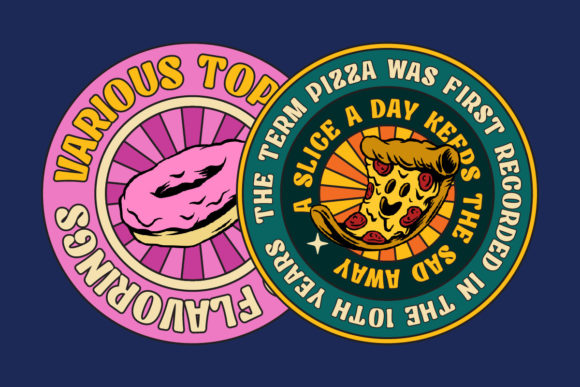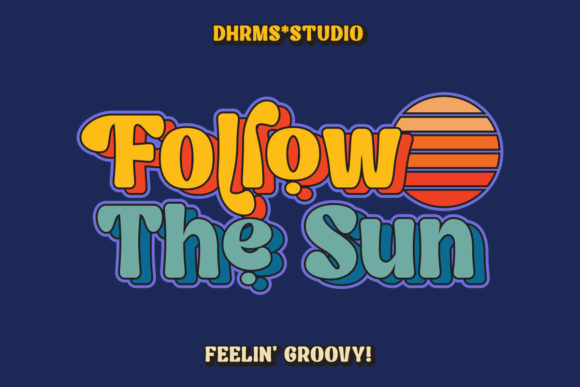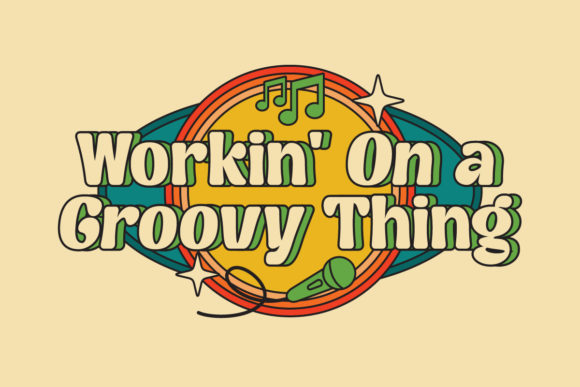
Introduction to Kelpo Font
Kelpo is a cool display font, inspired by 70’s retro style and pop culture’s visual design like old comics, cartoons, and posters.